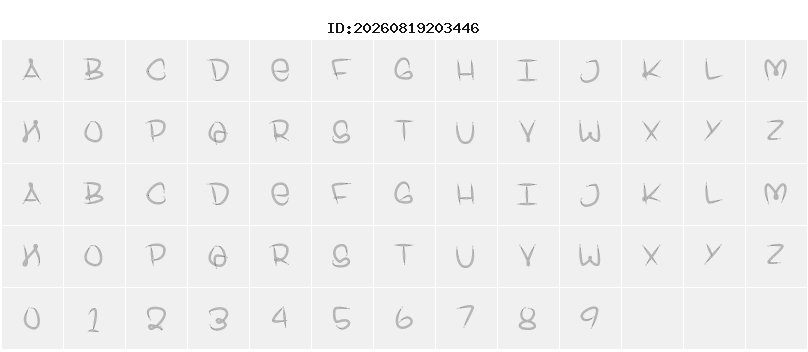
Shoelace Font Preview
• Font Name: Shoelace Font
• Full Font Name: Shoelace FontRegular
• PostScript Name: ShoelaceFont
About Shoelace Font.ttf
Shoelace Font.ttf is a modern, elegant sans-serif font designed for ultimate readability and visual harmony. Perfect for branding, headlines, web design, and print materials.